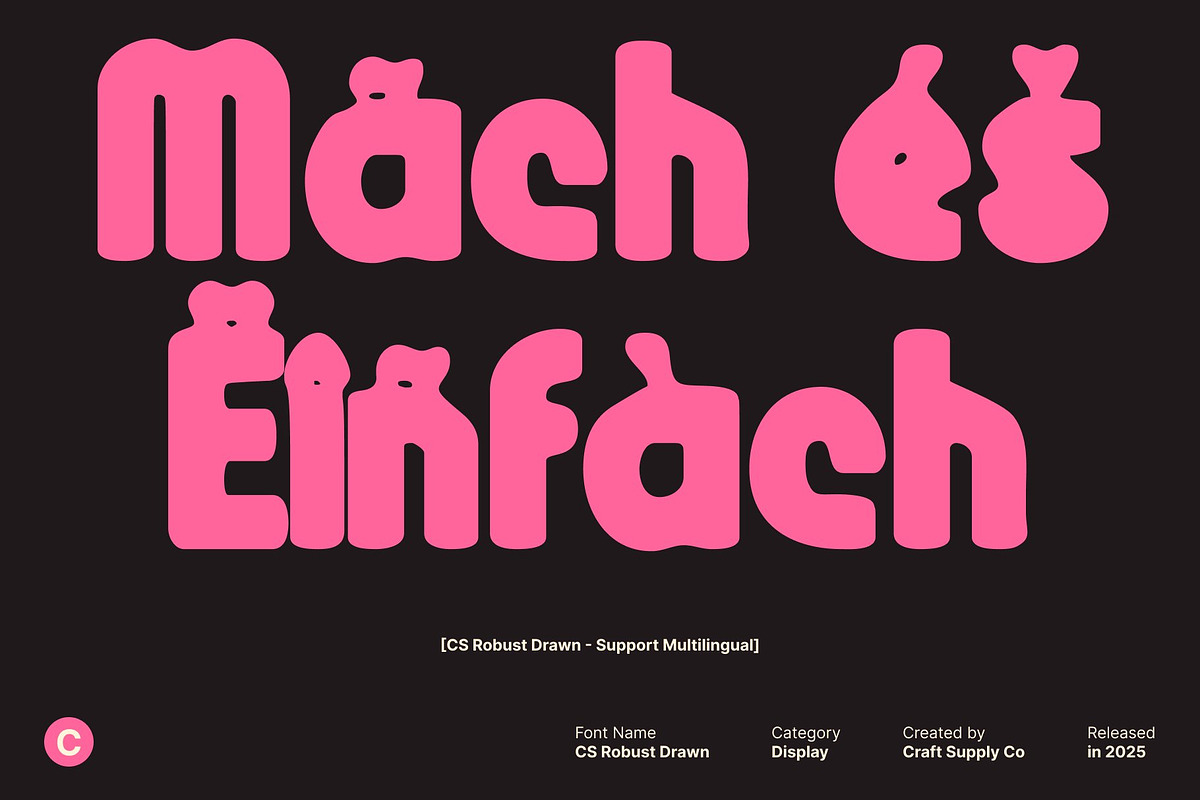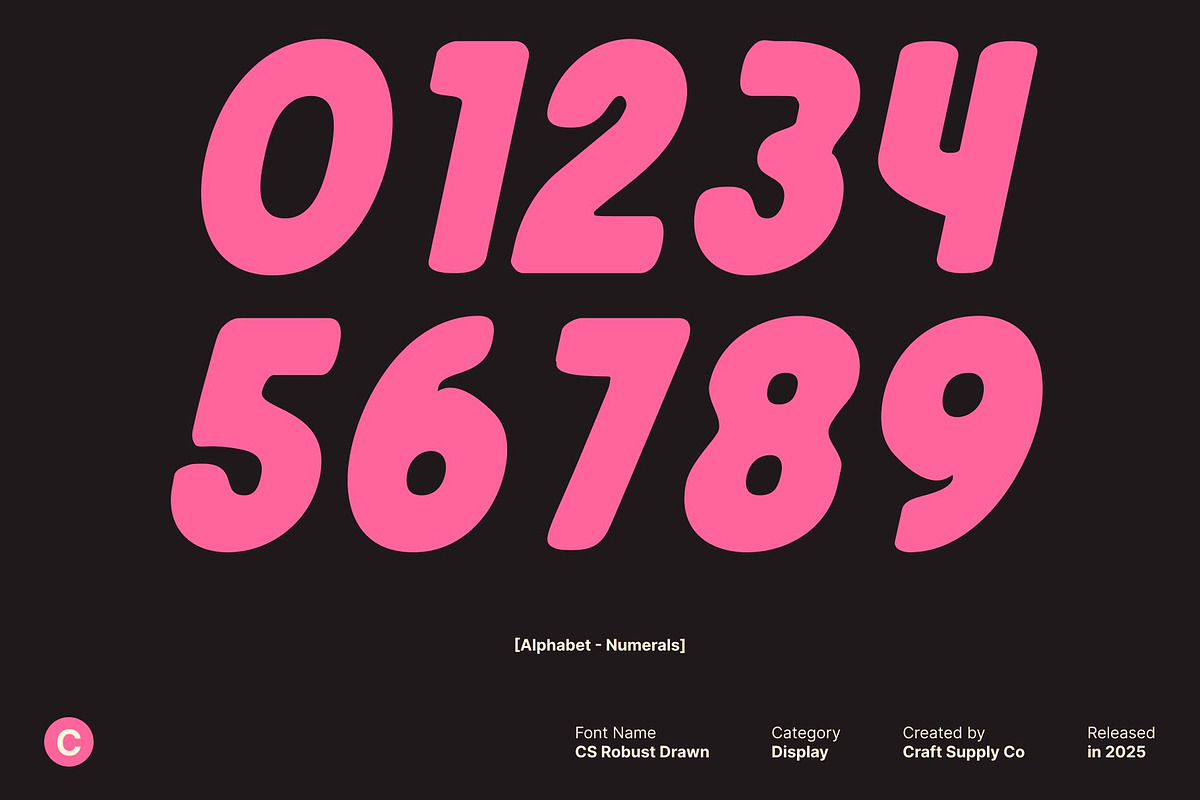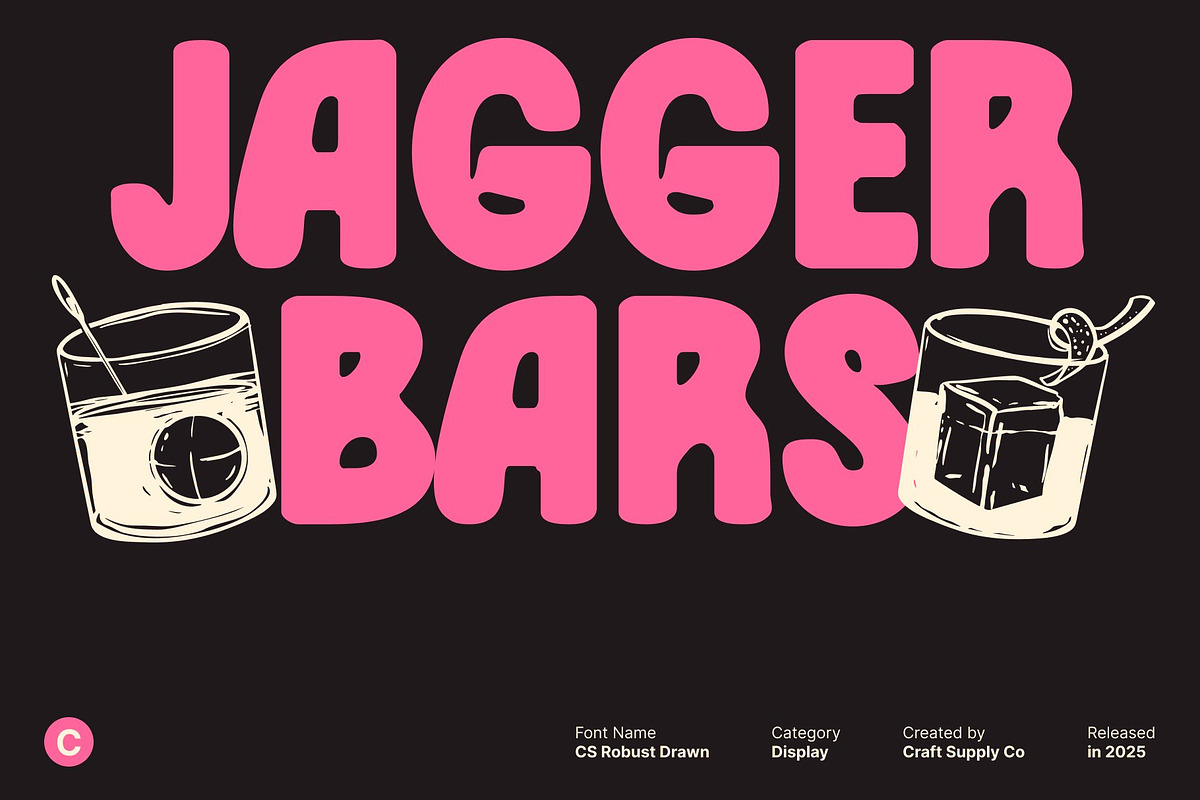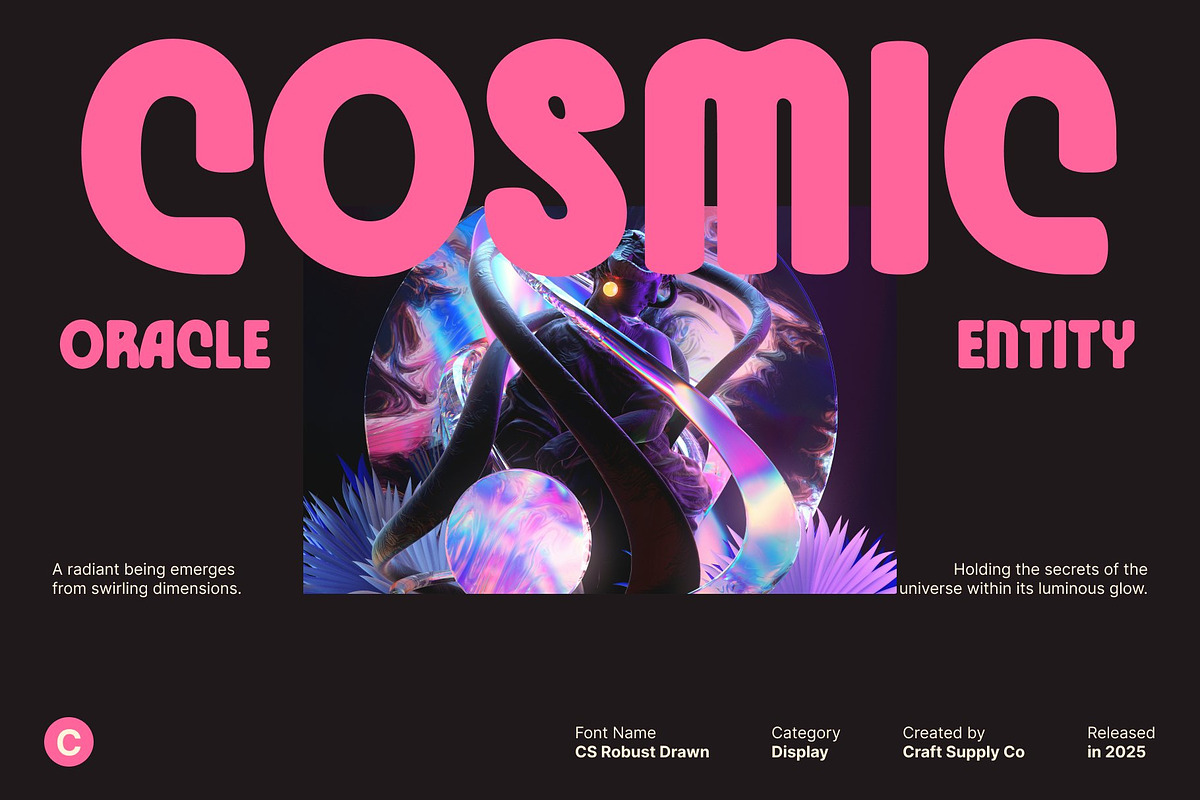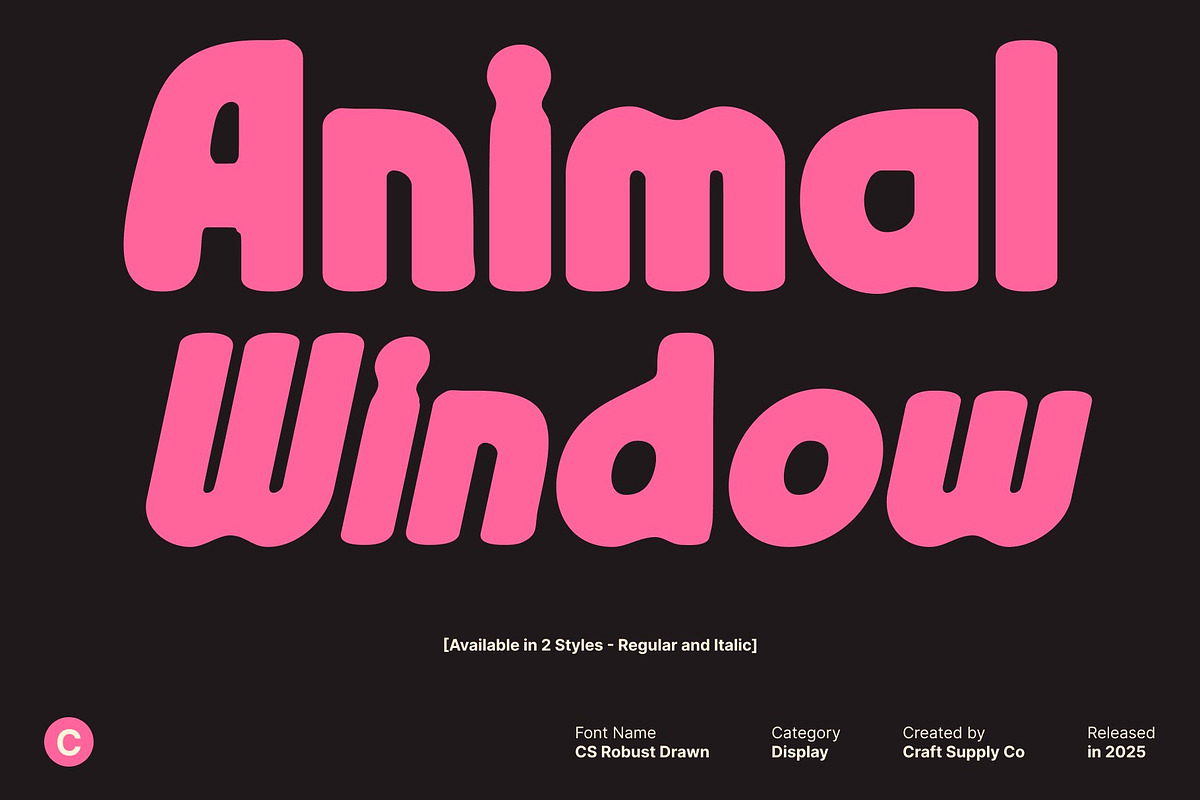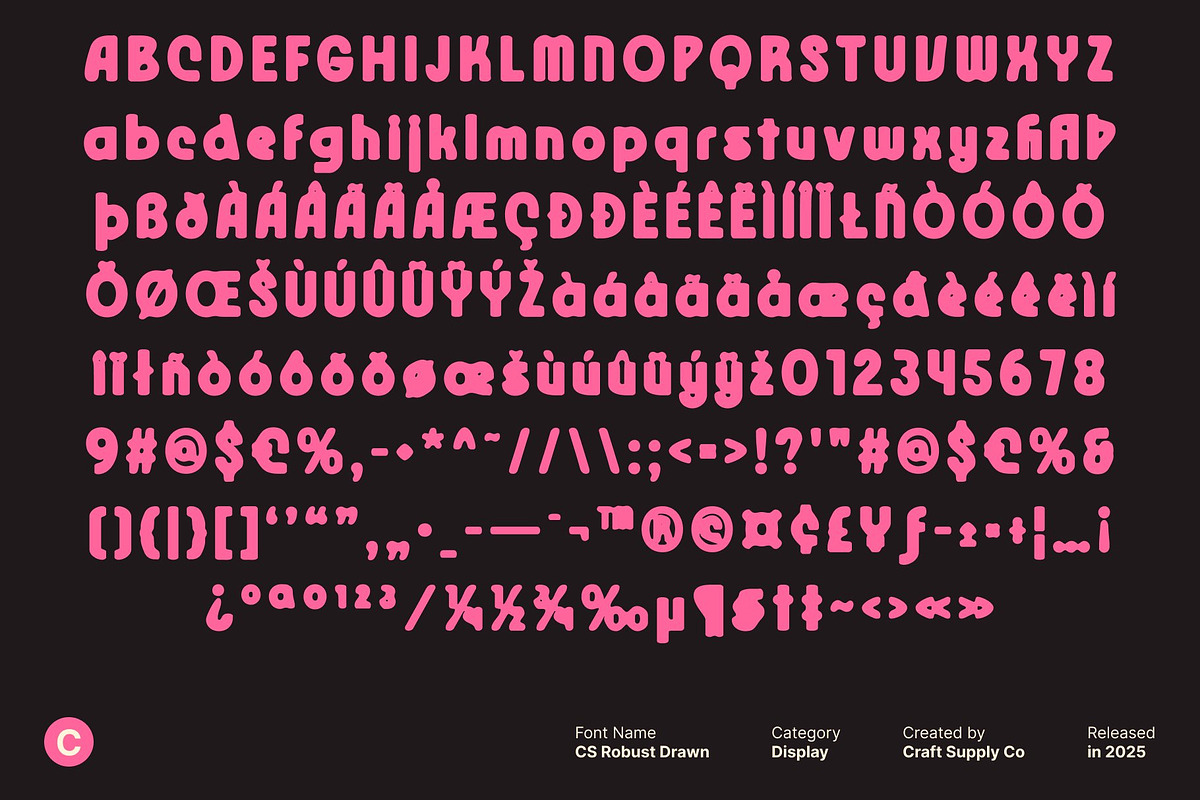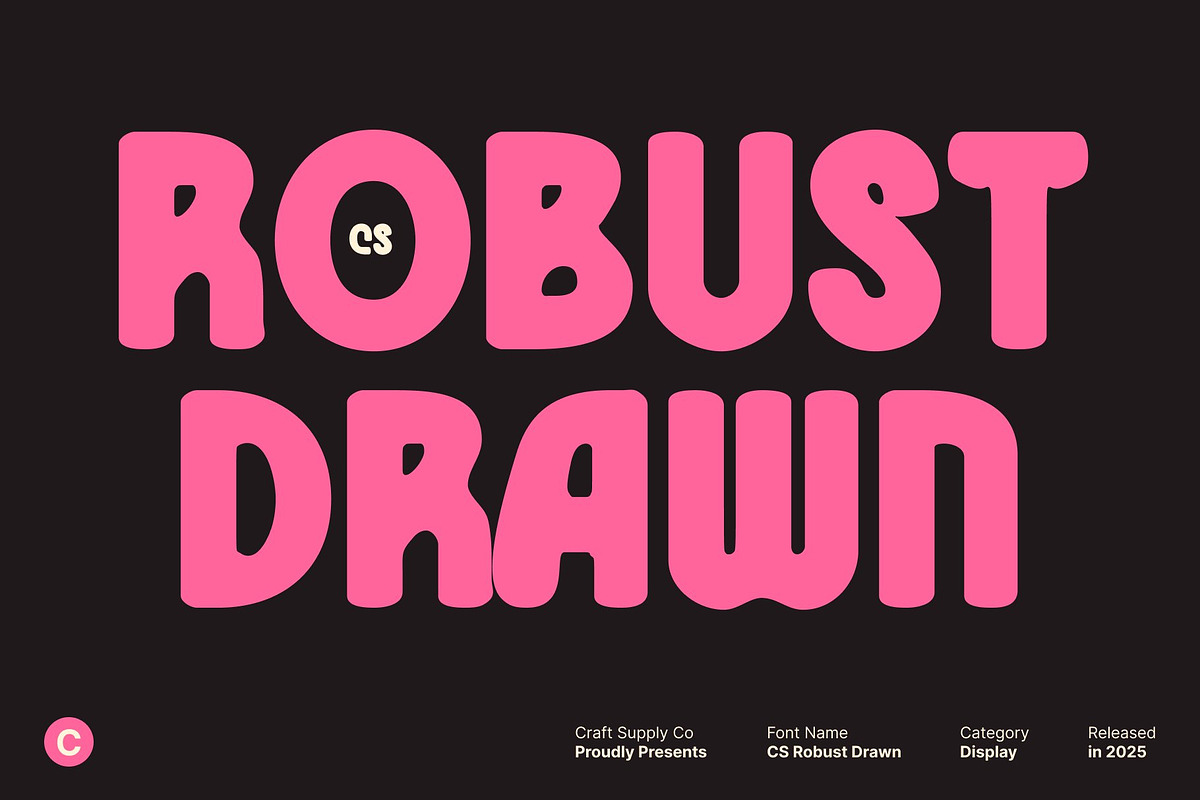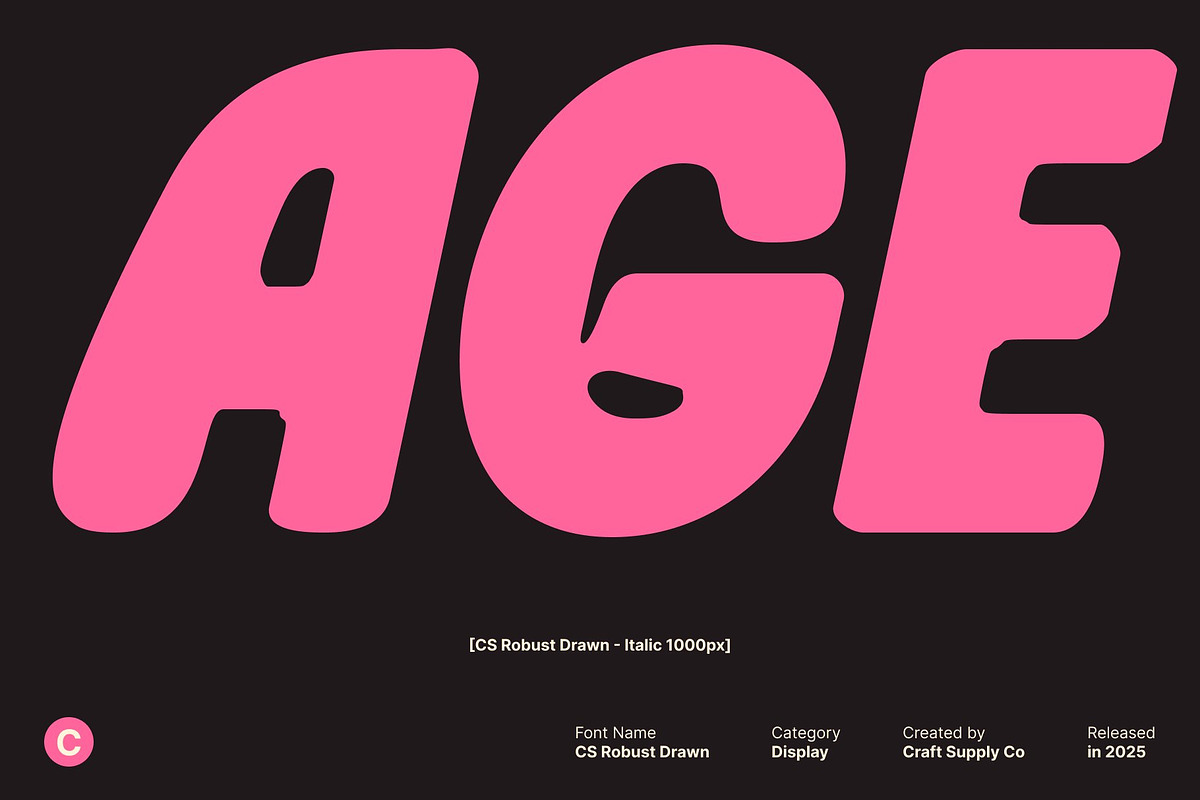
CS Robust Drawn
CS Robust Drawn – Bold Modern Sans-Serif with Hand-Drawn Character
Strong, Contemporary Letterforms This is a modern sans-serif font designed with bold, clean, and contemporary lines. Its solid structure and confident proportions create a powerful visual presence, making it perfect for designs that require strength, clarity, and modern appeal. Each character delivers balance and precision, ensuring readability while commanding attention.
Minimalist Design with Versatile Appeal With its streamlined sans-serif construction, this font combines simplicity with sophistication. The font’s modern design makes it highly adaptable, ideal for both large-scale display text and smaller typographic compositions. Its clean geometry allows it to seamlessly integrate into a wide range of design projects, from corporate branding to creative digital layouts.
Hand-Drawn Effect for Artistic Personality The subtle drawn texture introduces a handcrafted, artistic touch that sets apart from standard sans-serif fonts. This organic detail adds warmth, uniqueness, and visual interest, giving the typeface personality while maintaining its contemporary clarity. The drawn effect transforms each letter into a lively, expressive element.
Perfect for Logos, Posters, and Creative Branding This font is ideal for logos, posters, branding projects, editorial designs, and marketing materials that need a bold yet artistic typographic voice. Its combination of strong modern lines and hand-drawn character allows designers to create visually striking, memorable, and creative compositions that stand out with confidence and style.
- CS Robust Drawn Regular
- CS Robust Drawn Italic